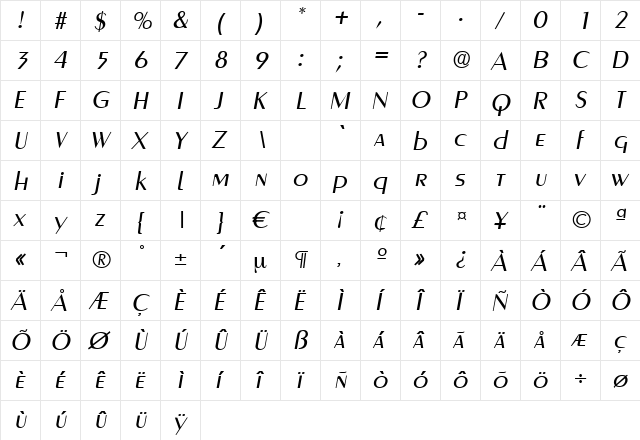
GreyhoundRegularItalic Regular
GreyhoundRegularItalic takes a measured approach to typography — its balanced proportions and neutral character make it a reliable workhorse for both digital and print work. Its italic angle brings a sense of urgency and motion to the letterforms.
Pro Tip: Try GreyhoundRegularItalic for annotation and caption copy alongside an upright companion — the contrast in angle creates a dynamic but ordered typographic system.